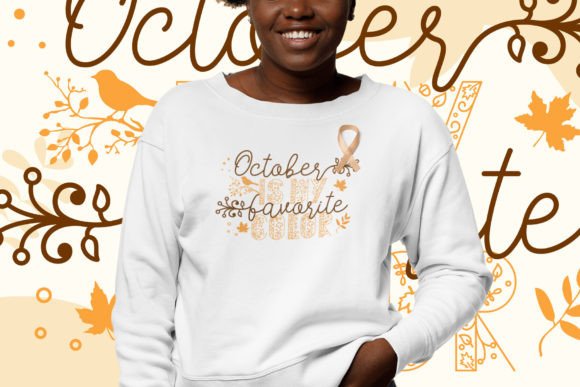
Dream Fall is a beautiful and elegant autumn concept font duo with two styles – script and display. This font is inspired by the autumn season, which makes it suitable for adorable and kids’-related products with a cozy, fall theme.
Dream Fall Duo Font